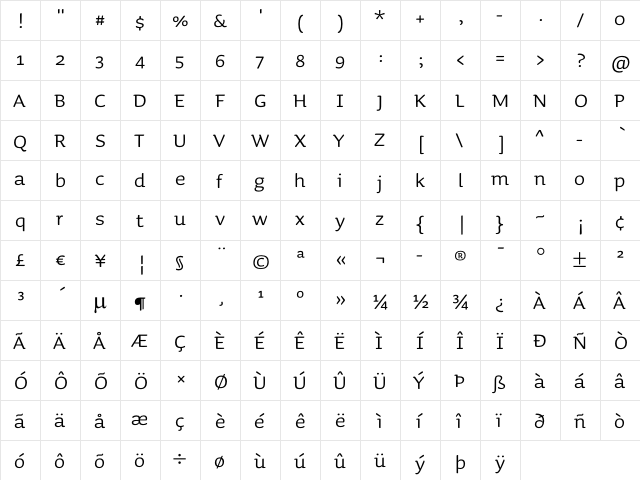
Sauna-Roman Regular
Design Context for Sauna-Roman Typeface
Sauna-Roman offers clean, dependable letterforms without strong stylistic allegiance, making it a practical choice for designers who need flexibility.